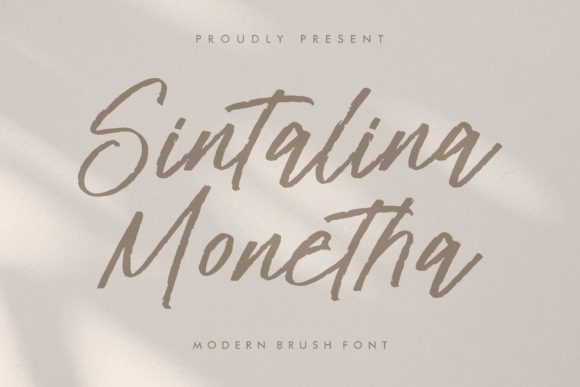
Step into a world of artistry with Sintalina Monetha, a script font that will sweep you off your feet. Designed by Perspectype Studio, this font is a symphony of elegance and charm, perfect for adding a touch of sophistication to any project.
With its graceful curves and flowing lines, Sintalina Monetha is the perfect choice for creating logos that exude a timeless appeal. Let your brand speak volumes with a logo that reflects your impeccable taste and attention to detail.
This enchanting font also shines when it comes to branding projects. Envision your brand's identity taking shape with Sintalina Monetha as its cornerstone. Create a cohesive look that will leave a lasting impression on your audience, whether it's on business cards, letterheads, or social media graphics.
Unleash your creativity with Sintalina Monetha and design homeware that captures the essence of modern elegance. From chic mugs to eye-catching posters, let your products stand out with a font that speaks to the hearts of your customers.
Elevate your product packaging with the allure of Sintalina Monetha. Transform ordinary boxes into works of art, enticing customers with a font that exudes luxury and sophistication. Make your products unforgettable, not just for their contents, but for their captivating presentation.
If you're seeking a font that will make your quotes shine, look no further than Sintalina Monetha. Its graceful strokes will add a touch of inspiration to your words, making them resonate with your audience on a deeper level.
Create posters that command attention with Sintalina Monetha. Let your messages take center stage with a font that adds a touch of magic to your words. Whether it's a motivational quote or an upcoming event announcement, captivate your audience with a font that leaves them spellbound.
Make your shopping bags a fashion statement with Sintalina Monetha. Design bags that turn heads wherever you go, with a font that speaks to your unique style. Carry your essentials in a bag that reflects your impeccable taste, and let Sintalina Monetha be your style companion.
Design t-shirts that make a statement with Sintalina Monetha. Let your wardrobe speak for itself with t-shirts featuring this captivating font. Create designs that resonate with your personality, and wear your style with confidence.
Adorn book covers with the elegance of Sintalina Monetha. Create books that are as captivating on the outside as they are on the inside. Let your readers fall in love with your stories, starting with the very first glance at the cover.
Craft stunning name cards that leave a lasting impression with Sintalina Monetha. Design cards that reflect your professionalism and attention to detail. Make a statement wherever you go, with a name card that sets you apart from the rest.
Sintalina Monetha will take your invitation cards to the next level. Create invitations that exude elegance and charm, setting the tone for a memorable event. Let your guests feel the excitement and anticipation even before the event begins.
Design greeting cards that warm hearts with Sintalina Monetha. Express your love, gratitude, and well wishes with cards that speak volumes. Let your words flow beautifully with a font that captures the essence of your emotions.
Create labels that add a touch of sophistication to your products with Sintalina Monetha. Design labels that elevate your products, making them stand out on shelves and capturing the attention of discerning customers.
Add a touch of elegance to your photography with Sintalina Monetha watermarks. Protect your work with a font that complements your images, adding a subtle yet noticeable mark of authenticity.
Elevate your special events with Sintalina Monetha. Create signage, programs, and invitations that reflect the grandeur of the occasion. Let your guests immerse themselves in an atmosphere of sophistication and celebration.
Sintalina Monetha is more than just a font; it's a gateway to a world of creativity and expression. With its versatility and charm, it will transform your projects into masterpieces. Embrace the allure of Sintalina Monetha and watch your creative vision come to life.